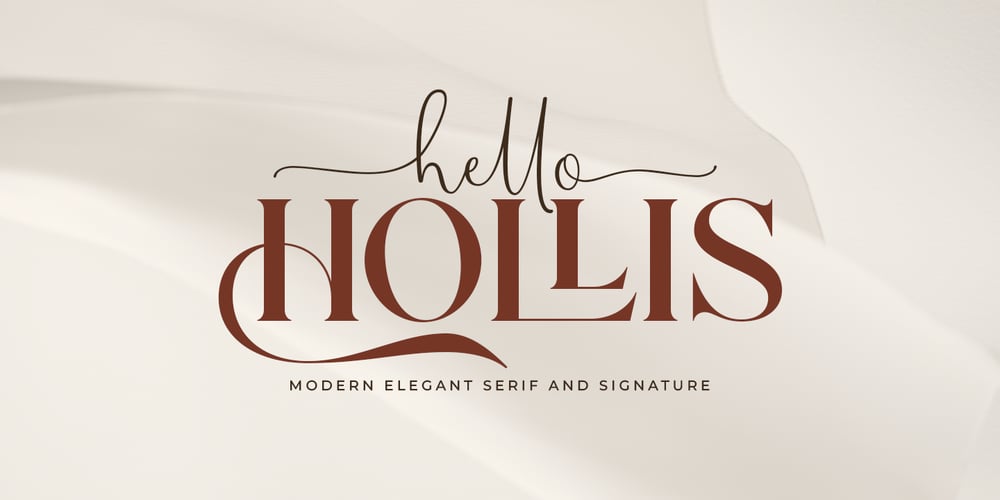
Hello Hollis
Hello Hollis font
Hello Hollis Font Family was designed by Mur Zani and published by Zane Studio. Hello Hollis contains 2 styles and family package options. Introducing the Halo Hollis Font Duo..hello nice people this is my new font, the Hello Hollis Font Duo sits somewhere between a modern serif and signature, Hello Hollis is great for logo branding, wedding invitations, typography, text quotes, magazines, or anything else you want.Hello Hollis Serif includes, numbers, punctuation, alternatives, ligatures and also supports other languages :)Thank You 🙂